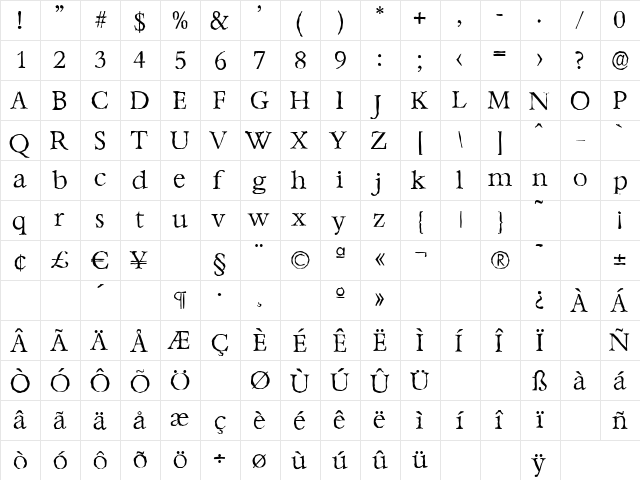
BernsteinAntique-Light Regular
Design Context for BernsteinAntique-Light Typeface
BernsteinAntique-Light has the warm character of retro typography — evoking diners, record sleeves, and the golden age of print advertising. The delicate stroke weight brings airiness and refinement to layouts.
Perfect for vintage-inspired branding, retro packaging, nostalgia campaigns, and period-accurate editorial design.
Font Pairing: Combine BernsteinAntique-Light with a simple slab or neutral sans — period-accurate companions reinforce the vintage feel without competing for attention.
Pro Tip: Use BernsteinAntique-Light for headlines and pull quotes rather than body copy — its personality is best appreciated in short, focused bursts.